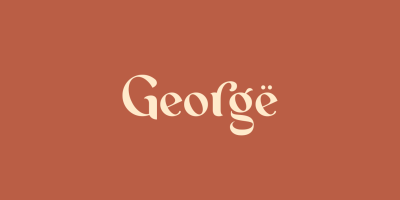
Grenette Free Download
Grenette Font Free Download
Grenette Font excels in artisanal design applications including French bakery branding, boutique café signage, artisan food packaging, charming bistro menus, handcrafted product labels, rustic wedding invitations, provincial lifestyle brands, French countryside tourism, gourmet culinary materials, and authentic patisserie communications. This delightful typeface brings Parisian charm to artisanal craft projects.
What makes Grenette Font truly exciting is its perfect capture of French artisanal tradition with hand-lettered characteristics that evoke cobblestone streets and traditional craftsmanship. The font features organic letterforms with subtle irregularities and charming imperfections that create authentic warmth and human connection. Its French heritage and artisanal spirit make it ideal for brands celebrating traditional craftsmanship, culinary excellence, and audiences who appreciate authentic European culture and time-honored artisanal traditions.
The Grenette Font family typically includes Regular weight with potential stylistic alternates and decorative elements that enhance its artisanal character. These charming options provide designers with authentic French styling while maintaining the font's distinctive craft heritage and provincial elegance across various artisanal applications and cultural contexts.
Whether you're developing artisanal branding, creating French-inspired campaigns, or designing culinary marketing materials, Grenette Font Free Download delivers the authentic French charm and artisanal sophistication that craft-focused projects require. Its exceptional character and provincial appeal make it invaluable for designers working with bakeries, culinary brands, and artisanal companies requiring typography that celebrates French culture, traditional craftsmanship, and the timeless appeal of authentic artisanal excellence that connects with audiences who value quality, tradition, and European heritage.